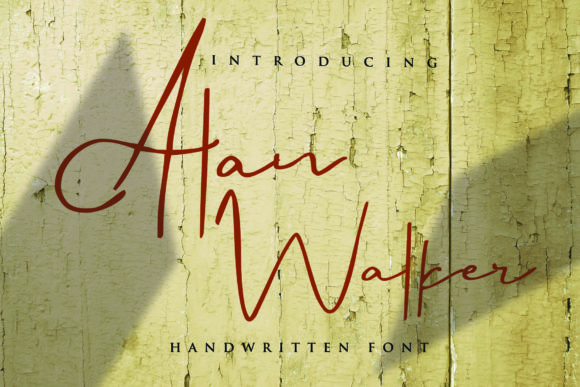
The Timeless Elegance of Alan Walker Font: A Designer’s Delight
I’ll never forget the time I was working on a wedding invitation project, and my client asked for a font that exuded elegance and sophistication. I scoured the internet, tried out countless fonts, but nothing seemed quite right. That was until I stumbled upon the Alan Walker Font. It was like a breath of fresh air – classy, refined, and perfect for the job. In this article, I’ll share my experience with this beautiful font, its features, and how to make the most of it in your design projects.
- ✨ Elegant and refined design that’s perfect for high-end projects
- ✅ Highly versatile – works well for branding, headings, wedding designs, invitations, signatures, logos, labels, and more
- 💫 Timeless appeal that won’t go out of style anytime soon
- 🎨 Beautifully crafted with attention to detail
While the Alan Walker Font is an excellent choice, there are a few things to keep in mind:
- 🤔 Limited availability of certain characters or glyphs, which may require some creative workaround
- ⚠️ May not be suitable for body text or long-form content due to its elegant, yet slightly ornate design
The Story Behind Alan Walker Font
The Alan Walker Font is named after its designer, who drew inspiration from classic calligraphy and handwriting. The font is designed to be timeless and versatile, making it perfect for a wide range of design projects. While the designer’s background is unclear, it’s evident that they poured their heart and soul into crafting a truly exceptional font.
| What type of projects is the Alan Walker Font best suited for? | The Alan Walker Font is highly versatile and can be used for a wide range of projects, including branding, headings, wedding designs, invitations, signatures, logos, labels, and more. |
| Is the Alan Walker Font suitable for body text or long-form content? | While the Alan Walker Font is beautiful, it’s not ideal for body text or long-form content due to its elegant, yet slightly ornate design. It’s best used for headings, titles, or short-form content. |